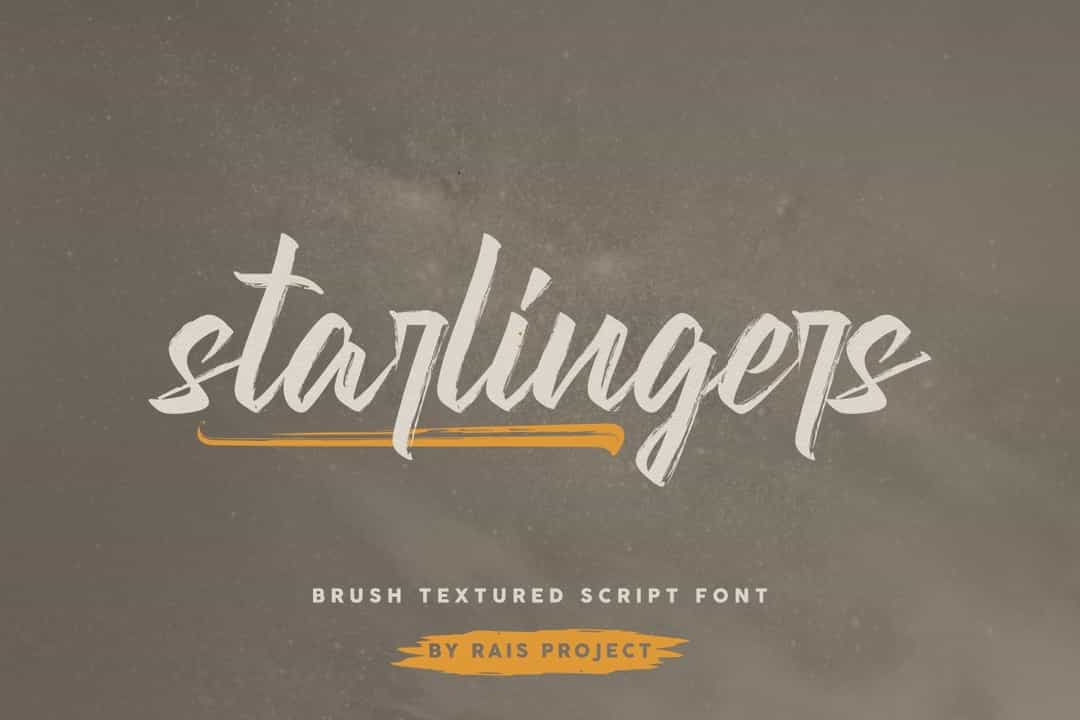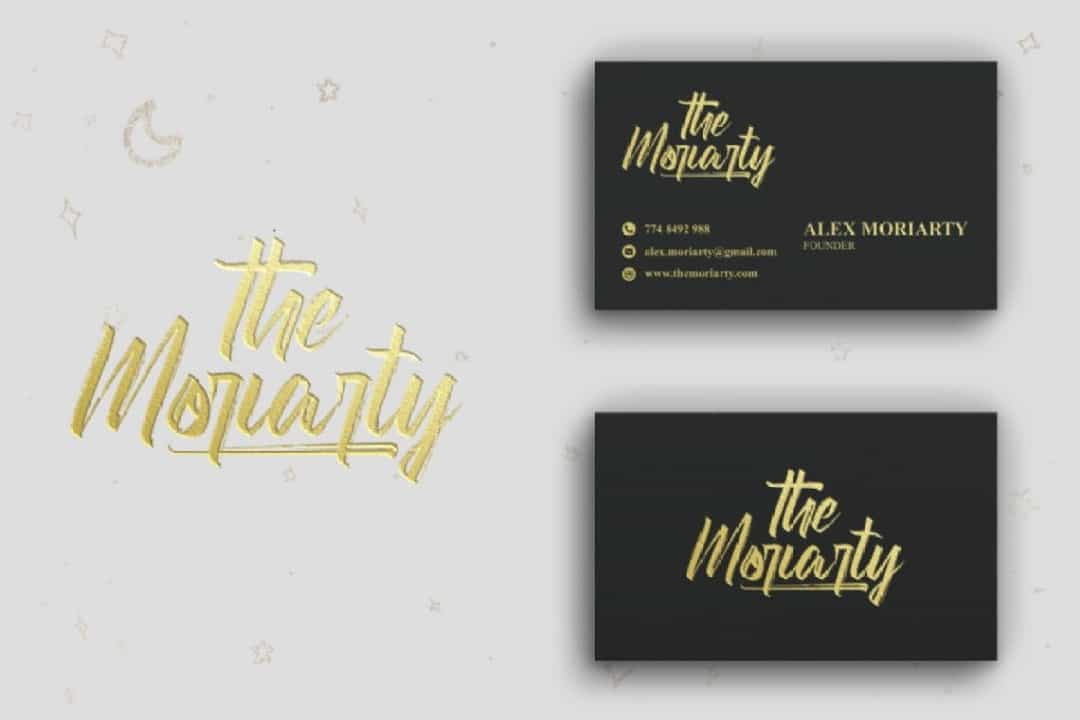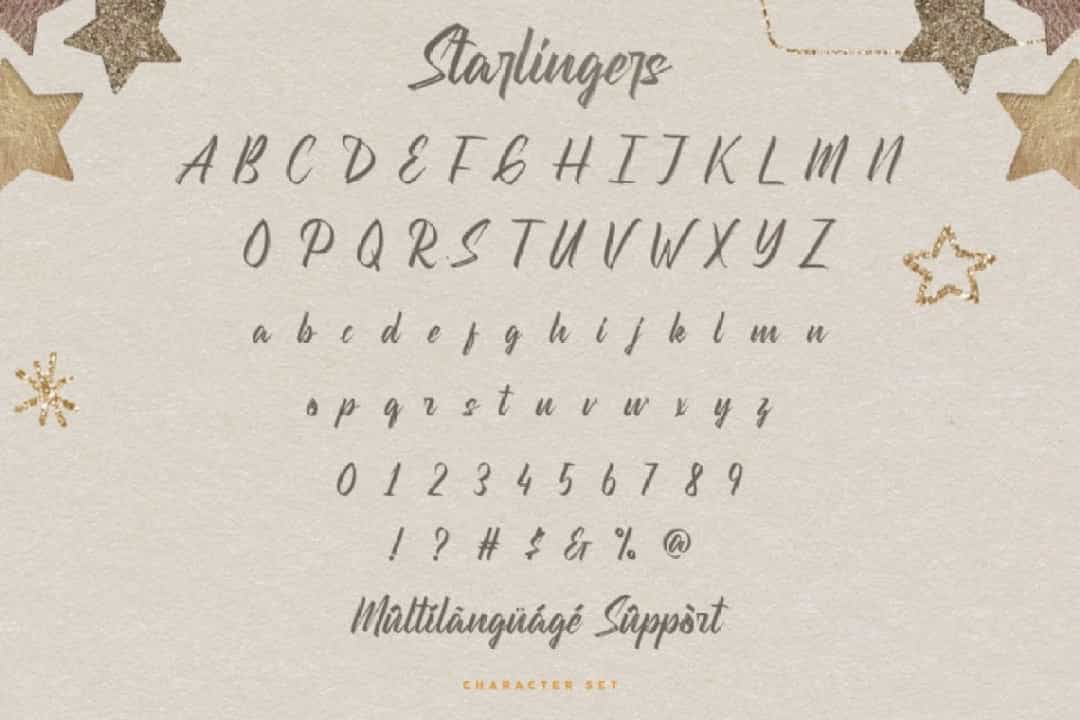
Discover Starlingers Font, part of the Brush collection—a versatile and unique font perfect for adding a personal touch to your projects. Download it for free and enjoy crafting designs with style, from invitations to social media posts. This font is available exclusively for personal use, giving you the freedom to create without limits. Unlock your creativity with Starlingers Font today!
Starlingers is an innovative brush-textured script font designed by hand and is tailored specifically to meet your specific needs, such as headlines, promotions and events branding, advertisements, magazine, invitations, stationery, social media posts, labels as well as projects that need an eye-catching design such as vintage horror movie, Magazine, Game, Music Video, Racing Sports etc.